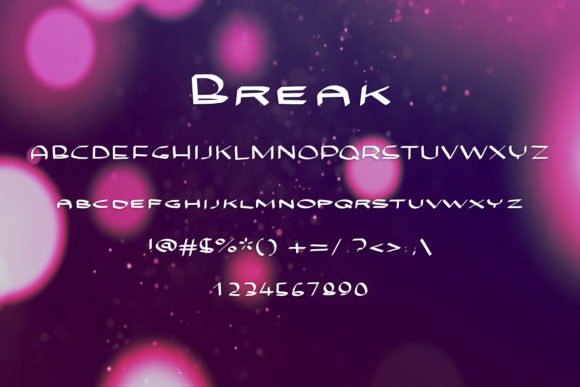
The Perfect Font to Shake Things Up
Have you ever stared at a blank page, wondering how to make your design stand out from the crowd? We’ve all been there – the cursor blinks, the mind goes blank, and the pressure to create something amazing mounts. But what if we told you that the solution to your creative woes lies in the unlikeliest of places: a quirky display font.
Meet Break Font, the rebellious newcomer to the world of typography. This offbeat font boasts a unique, handwritten feel that’s equal parts charming and eye-catching. Its slightly squashed letters add a touch of whimsy, making it the perfect addition to any design project that needs a little excitement.
As a designer, you know the importance of finding the right font to bring your vision to life. Break Font is more than just a pretty face – it’s a valuable tool that can help you break free from the ordinary and create something truly remarkable.
Break Font Key Features
- Unique Characteristics: Break Font features a distinctive, hand-drawn aesthetic with subtle texture and imperfections, giving it a unique and human touch.
Break Font Review
Break Font is a unique and attention-grabbing sans-serif typeface that’s perfect for making a statement. ✨ One of its standout features is the dramatic, uneven letter spacing that creates a sense of tension and energy. This font is ideal for titles, headings, and other text elements where you want to convey a sense of urgency or excitement.
Break Font also excels at adding a touch of sophistication and elegance to digital designs. ✨ Its clean lines and subtle nuances in letterform make it suitable for a wide range of applications, from editorial layouts to branding materials.
- ⚠️ Break Font may not be the best choice for body text due to its uneven spacing, which can make it difficult to read in large quantities.
Overall, Break Font is a versatile and stylish typeface that’s sure to make an impact. While it may have some limitations, its unique features and elegant design make it a valuable addition to any designer’s toolkit.
Break Font is commonly used in:
1. Advertising and marketing materials to grab attention and create visual interest.
2. Graphic design projects to create unique typography and emphasis text.